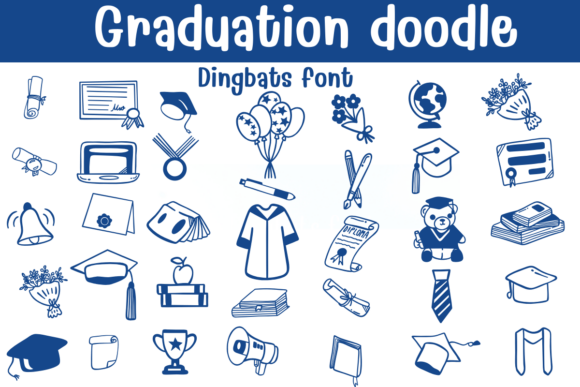
Graduation Doodle Font: Elevate Your Designs with a Sketched Twist
The world of typography is vast and diverse, offering a multitude of font styles to suit various design needs. Among these, the Graduation Doodle font stands out for its unique, sketched appearance that adds a personal touch to any project. In this article, we’ll delve into the characteristics of the Graduation Doodle font, its versatility, and how it can be effectively used in different design contexts.
What is Graduation Doodle Font?
Graduation Doodle is a dingbats font that boasts a sketched style, setting it apart from more traditional font types. Its natural and unique aesthetic makes it incredibly versatile, suitable for a wide range of design applications. Whether you’re working on a project that requires a touch of elegance, a dash of creativity, or simply something that stands out, Graduation Doodle offers a refreshing alternative.
Versatility in Design
The true strength of the Graduation Doodle font lies in its adaptability. Its sketched, doodle-like appearance can breathe life into various design projects, including:
- Educational Materials: Add a playful yet professional touch to textbooks, workbooks, and educational posters.
- Event Invitations: Make your party, wedding, or graduation invitations stand out with a unique and eye-catching font.
- Branding: Use Graduation Doodle to create memorable logos or brand names that reflect a creative and approachable image.
- Digital Content: Enhance your blog posts, social media graphics, and website content with a distinctive font that captures attention.
The only limit to using Graduation Doodle is your imagination. Its flexibility allows designers to experiment with different contexts and applications, pushing the boundaries of traditional typography.
Tips for Using Graduation Doodle Font
To make the most of the Graduation Doodle font, consider the following tips:
- Mix and Match: Combine Graduation Doodle with other font styles to create visual interest and hierarchy in your designs.
- Play with Sizes: Experiment with different font sizes to emphasize certain words or phrases, adding depth to your design.
- Color Variations: Take advantage of Graduation Doodle’s sketched nature by using a variety of colors to enhance its visual appeal.
- Legibility: Ensure that your design remains legible. While Graduation Doodle is unique and engaging, clarity is key, especially for body text.
Finding Inspiration with Graduation Doodle
Sometimes, all it takes is a little inspiration to unlock the full potential of a font. Here are a few ideas to get you started:
- Hand-Drawn Themes: Use Graduation Doodle in projects that benefit from a hand-drawn or DIY aesthetic, such as craft tutorials or vintage-inspired advertisements.
- Creative Projects: Incorporate Graduation Doodle into creative endeavors like comics, illustrations, or graphic novels for a distinctive look.
- Interactive Content: Enhance interactive content, such as digital magazines or interactive web pages, with Graduation Doodle for a dynamic user experience.
Best Practices for Font Usage
While Graduation Doodle offers a lot of creative freedom, adhering to some best practices can ensure your designs are effective:
- Consistency: Use Graduation Doodle consistently across your design to maintain a cohesive look.
- Contrast: Ensure sufficient contrast between the text and background to maintain readability.
- Alignment: Pay attention to text alignment and spacing to create a clean and professional appearance.
Graduation Doodle font offers a fresh and engaging alternative to traditional typography. Its sketched, doodle-like style makes it perfect for a wide range of design projects, from educational materials and event invitations to branding and digital content. By understanding its versatility and experimenting with different design approaches, you can unlock the full potential of Graduation Doodle and elevate your designs with a unique, sketched twist.
Get Creative with Graduation Doodle
Ready to add a touch of creativity and personality to your designs? Explore the possibilities of Graduation Doodle font today and discover how this versatile, sketched font can transform your projects. Let your imagination run wild and see where Graduation Doodle takes you!